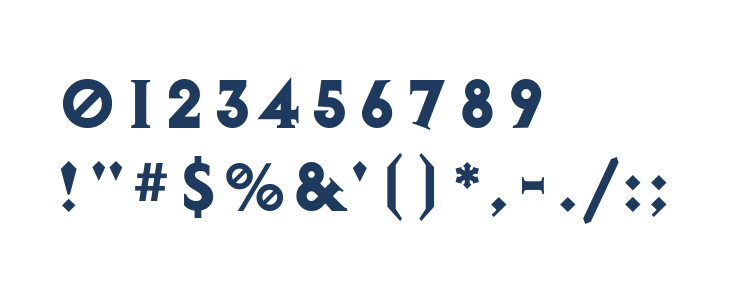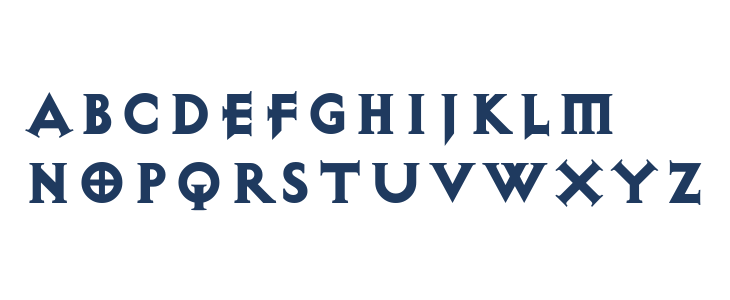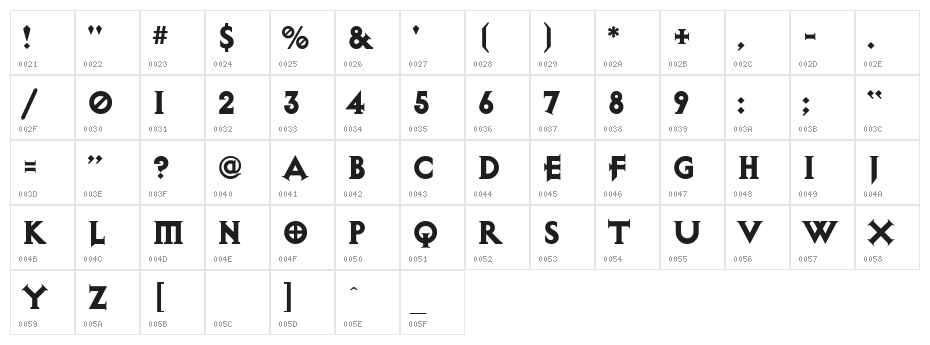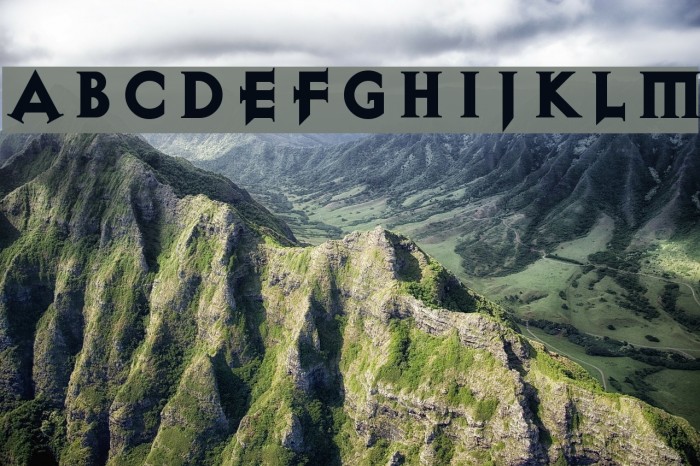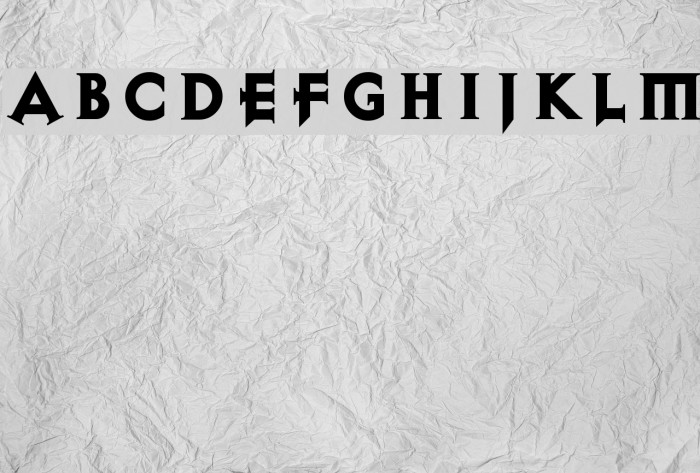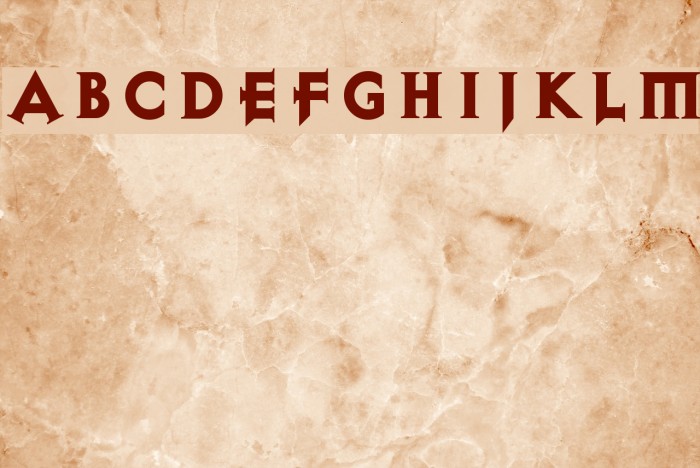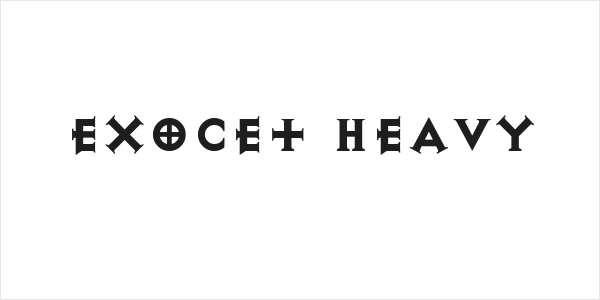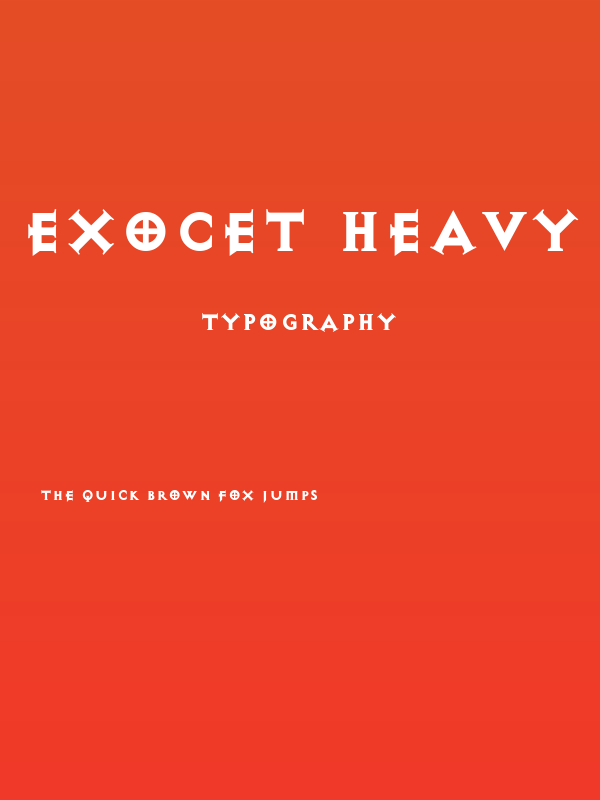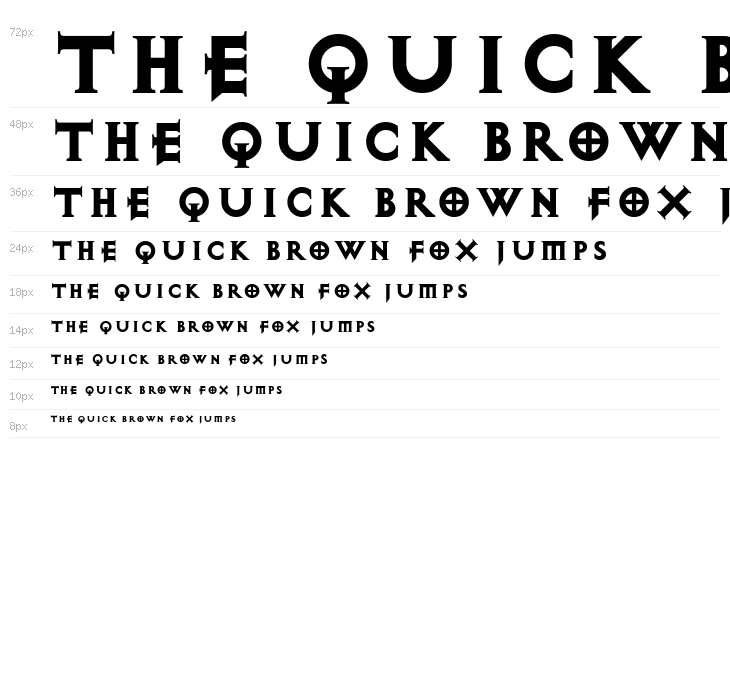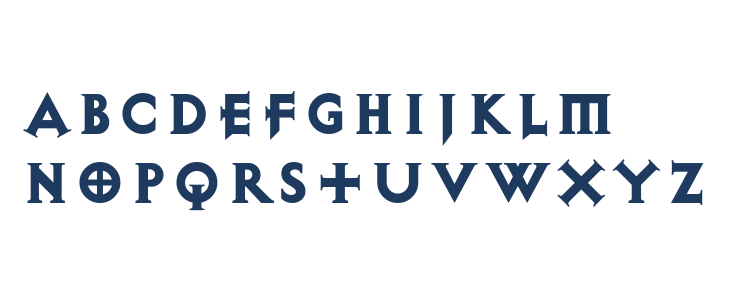
Exocet Heavy Font
Exocet Heavy Description
This font features a bold and striking design with a distinct geometric influence. The characters are crafted with sharp angles and unique cutouts, giving them a futuristic and almost mystical appearance. The uppercase letters are particularly prominent, with a strong presence that commands attention. The numerals and special characters maintain this bold aesthetic, ensuring consistency across all glyphs. The font's style is reminiscent of ancient scripts, yet it retains a modern edge, making it versatile for various design applications.